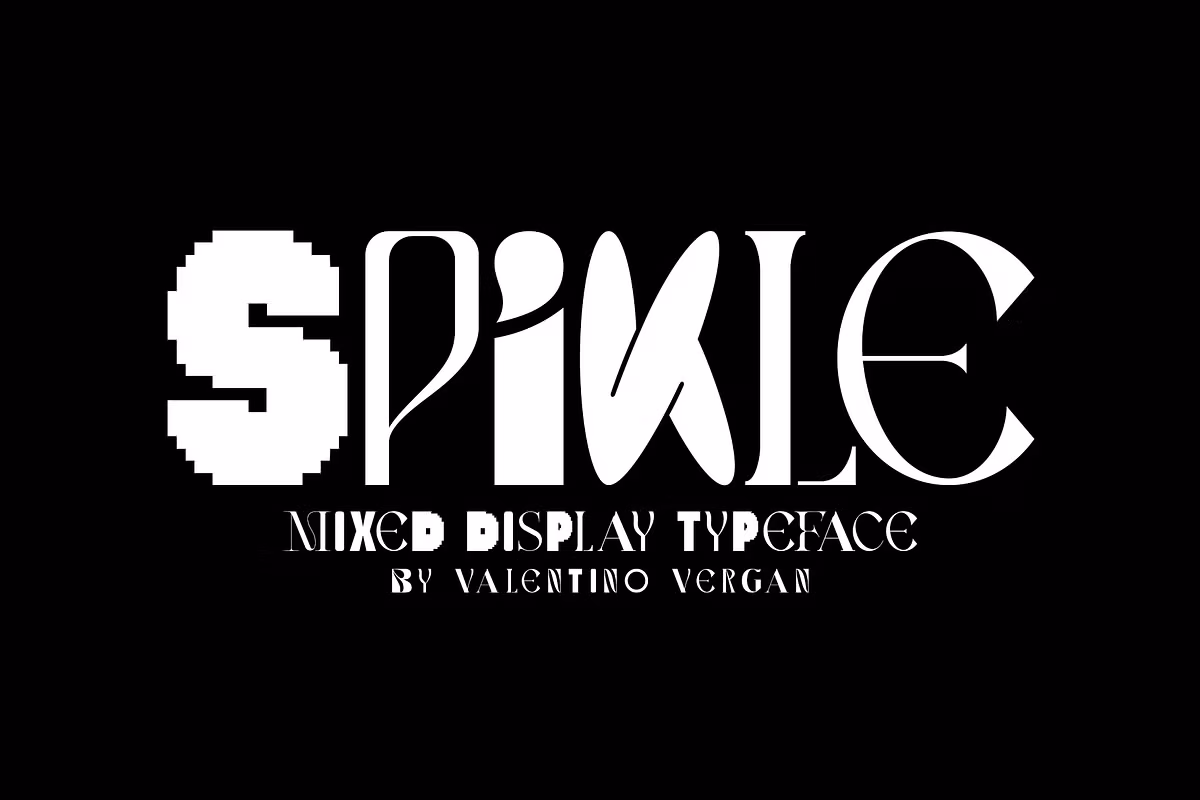
Spikle - Mixed Display Typeface Free Download is a bold and unique typeface that combines multiple styles in one, making it ideal for creating eye-catching designs. With its blend of geometric shapes and playful, yet professional detailing, Spikle is perfect for headlines, posters, branding, social media graphics, and other creative projects that need a standout typographic element.
The versatility of Spikle’s mixed display design allows you to experiment with different weights and styles to create dynamic, visually engaging compositions. Whether you’re working on a modern logo, promotional materials, or a creative editorial design, Spikle offers the flexibility to fit a variety of design needs.